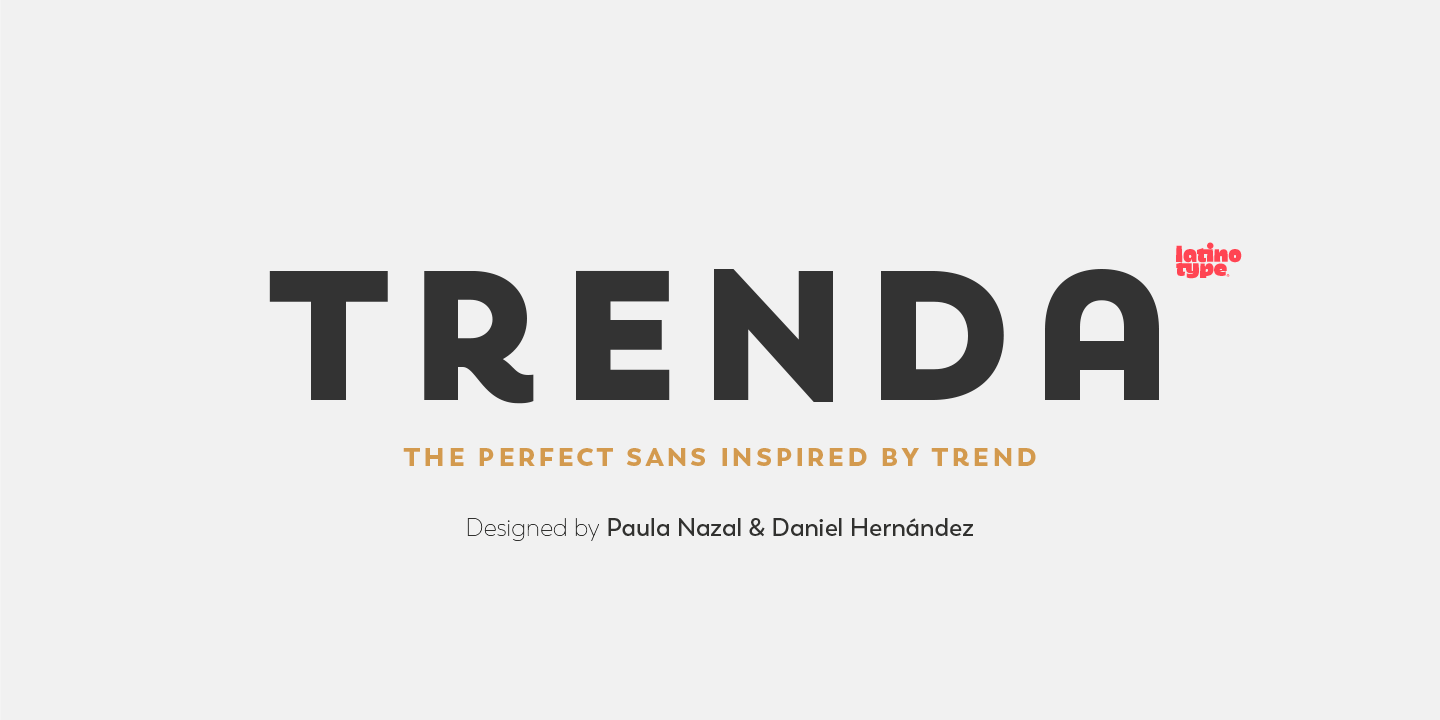
Trenda Font excels in various design applications including fashion brand identities, trendy social media graphics, contemporary magazine layouts, modern advertising campaigns, stylish web interfaces, cutting-edge product packaging, fashion-forward event materials, and innovative startup branding. This trendsetting typeface adapts perfectly to both dynamic digital platforms and fashionable print materials, making it ideal for designers seeking contemporary style and trend-conscious sophistication in their visual communications.
Trenda Font generates excitement among design professionals due to its trendy character and fashion-forward styling that instantly conveys modernity and style leadership. The font's contemporary letterforms and trend-conscious proportions create an immediate sense of fashion awareness and cultural relevance. Its stylish personality makes it particularly appealing for brands wanting to communicate trend leadership, fashion consciousness, and contemporary style in their visual identity.
The Trenda Font family includes multiple weights and styles such as Regular, Bold, Light, Italic, and Extended variations. Each family member maintains trendy design principles while offering distinct fashion-forward characteristics. The Light weight provides subtle trend elegance for sophisticated applications, while the Bold version delivers powerful impact for fashion headlines and trend-setting brand statements.
Fashion-conscious designers frequently choose Trenda Font Free Download for projects requiring both trendy authenticity and style distinction. This typeface demonstrates remarkable effectiveness across fashion industries including clothing brands, style magazines, beauty companies, and trend-conscious organizations. Its contemporary character allows brands to communicate fashion leadership while maintaining excellent readability and stylish visual appeal that captures current trends and anticipates future style directions.